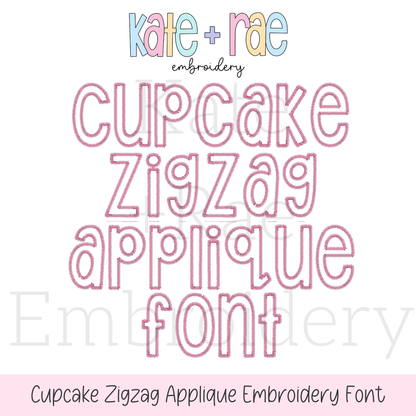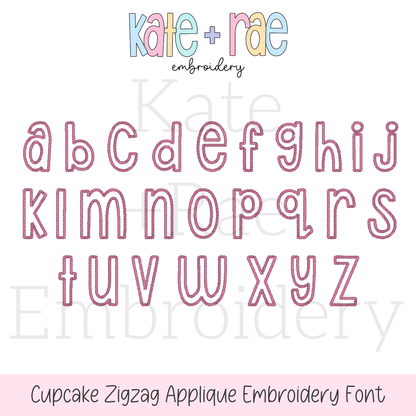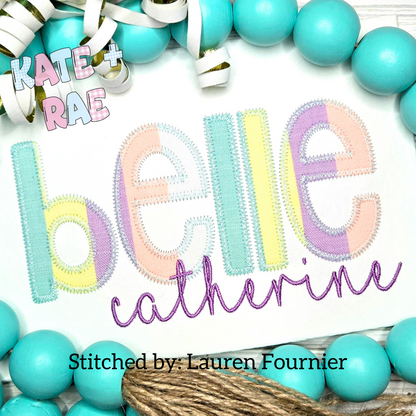
Cupcake Zigzag Stitch Applique Embroidery Font: The name belle in pastel striped zigzag applique letters above catherine in purple script on white fabric
Cupcake Zigzag Stitch Applique Font
Meet Cupcake, a sweet and bubbly zigzag stitch applique font! Stitch names on birthday shirts, kids' outfits, and everyday favorites.